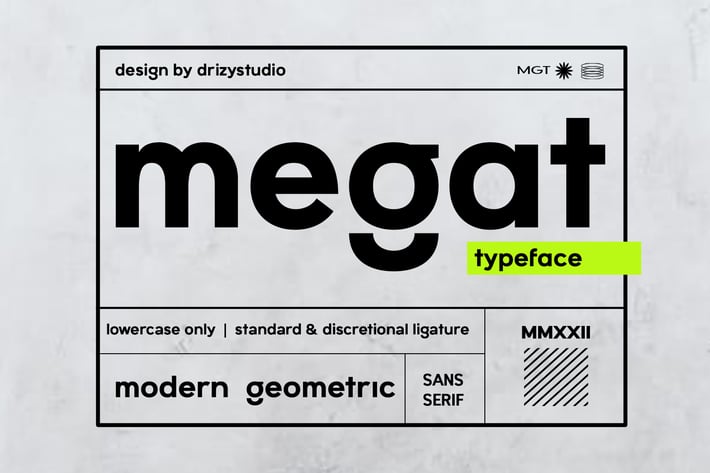
Megat - Modern Geometric Font
Introducing Megat! a modern geometric san serif font from Drizy! It's suitable for futuristic and modern theme of your project.
Megat Features:
Lower Case
Numeral
Multilingual & Alternates
Ligatures & Punctuations